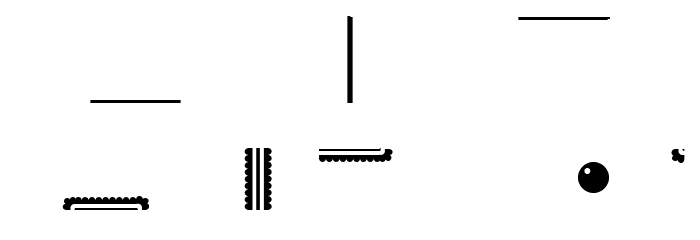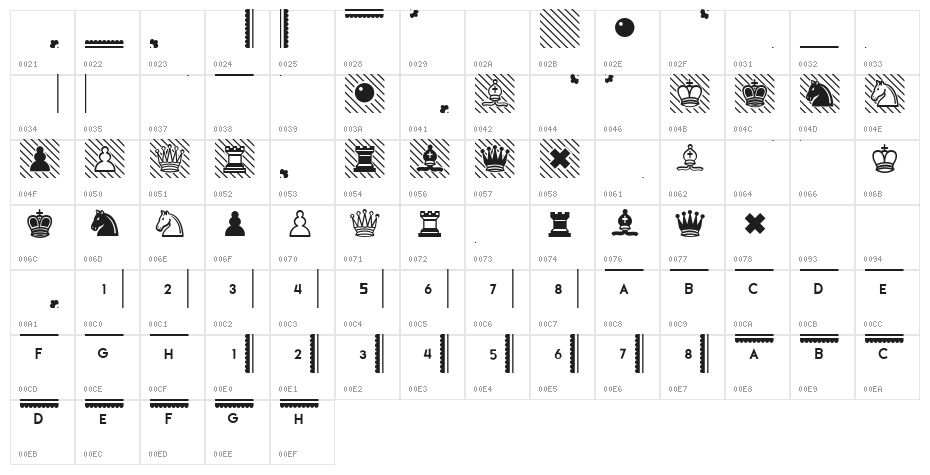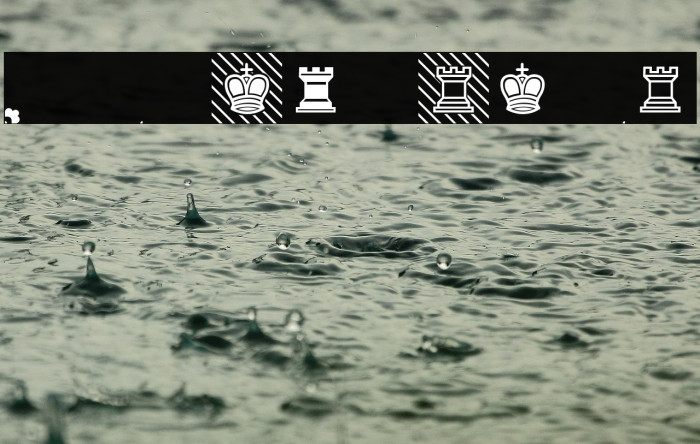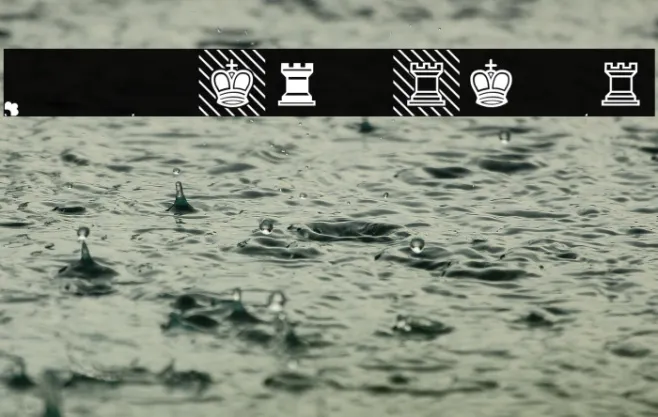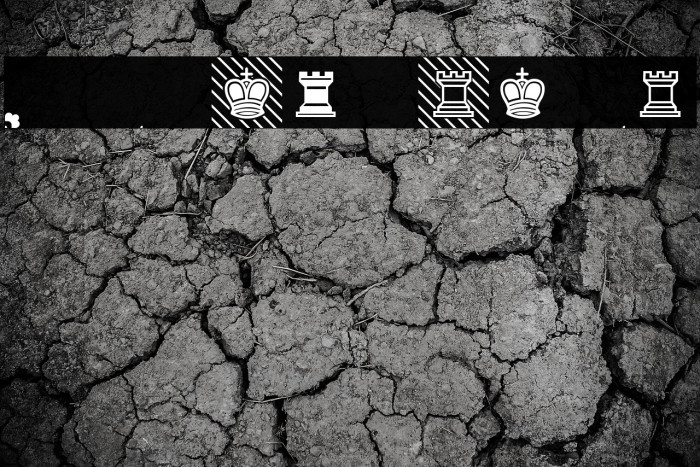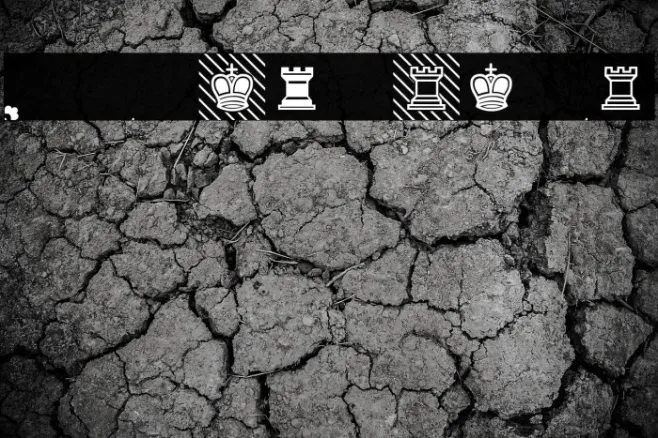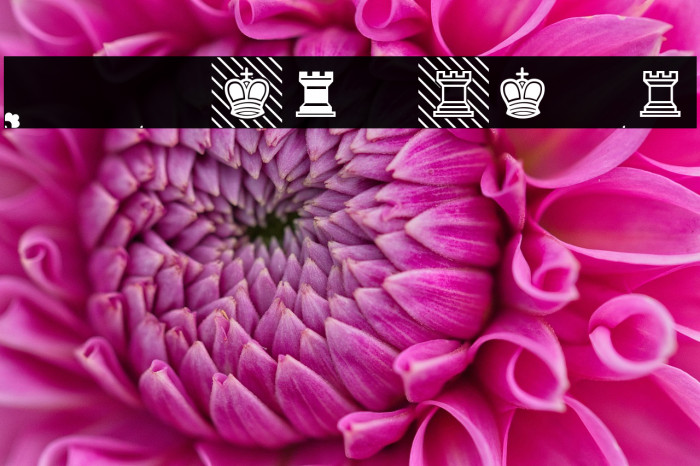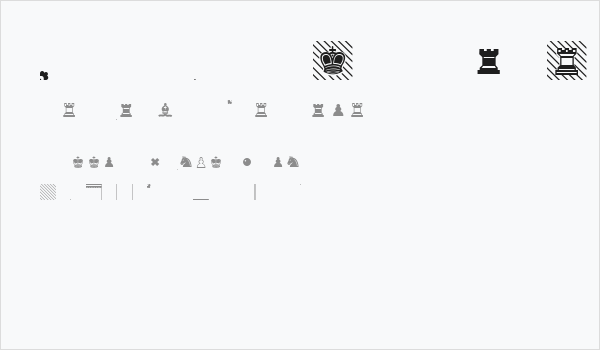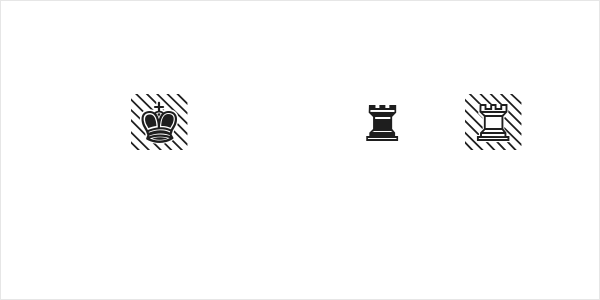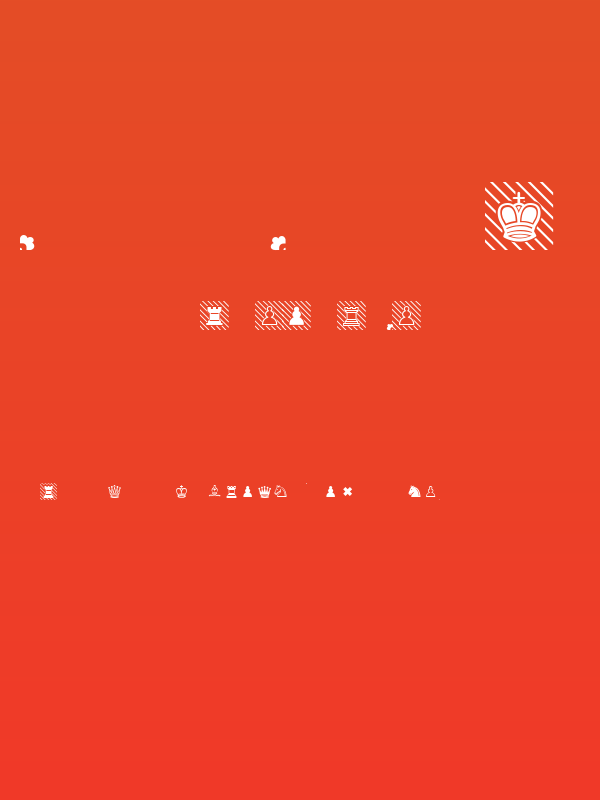
Schach Light Regular Font
Schach Light Regular Description
This is not a traditional font but rather a collection of chess piece symbols. Each character is represented by a stylized chess piece, including kings, queens, bishops, knights, rooks, and pawns. The design is bold and clear, making it easy to distinguish each piece. The symbols are detailed, with a modern and clean aesthetic, suitable for digital and print chess-related projects. The set includes both black and white pieces, allowing for versatile use in various contexts.
| Use Case | Logos, Educational materials, Game interfaces |
| Proposed Projects | Ideal for chess-related designs, educational materials, game interfaces, and themed decorations. |